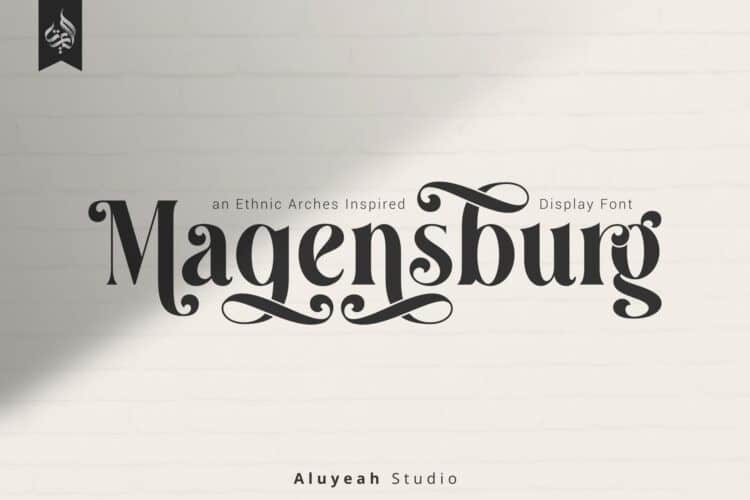
Magensburg Font
Magensburg Serif Font is a closely spaced vintage serif font that has a slightly feminine nature. It’s designed and shared by Aluyeah Studio. This font was carefully crafted and inspired ethnic arches in the world. In general, it creates a luxurious and mysterious look in design.
Coming to you with 160+ stunning alternate to create a perfectly mystical, beautiful, classy, elegant design.